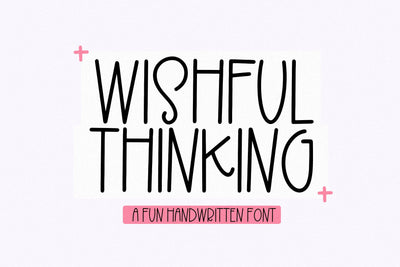
Wishful Thinking - Fun Handwritten Font
Wishful Thinking is a fun handwritten font!
This font is perfect for all of your craft projects, stickers, procreate designs, branding and more!